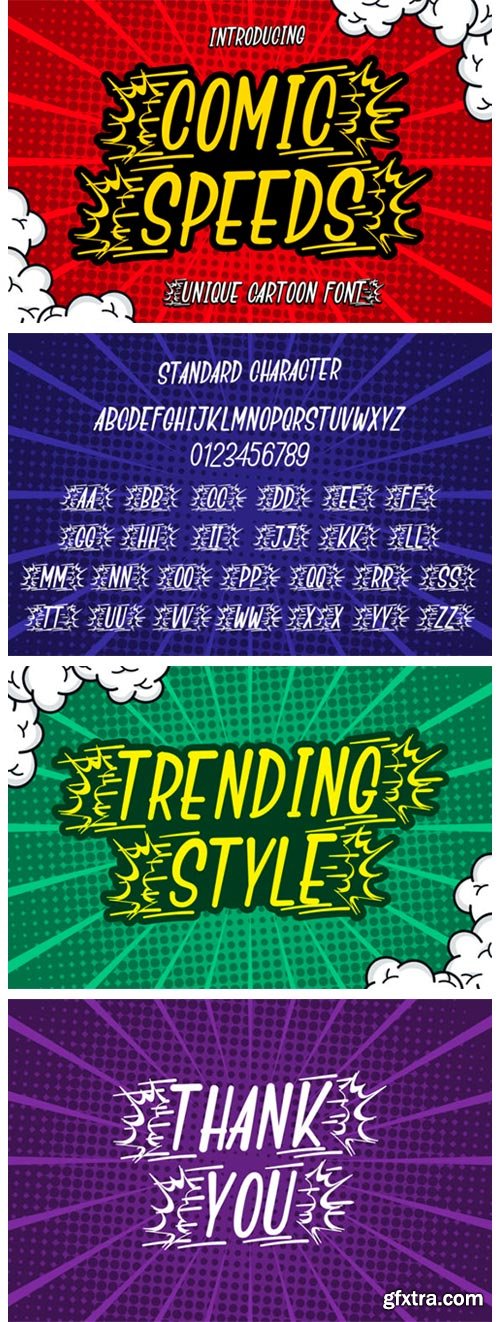
Comic Speeds Font
Comic Speeds is a fun display font. It has alternate characters with speed effects that make it perfect for any cartoon creative project.